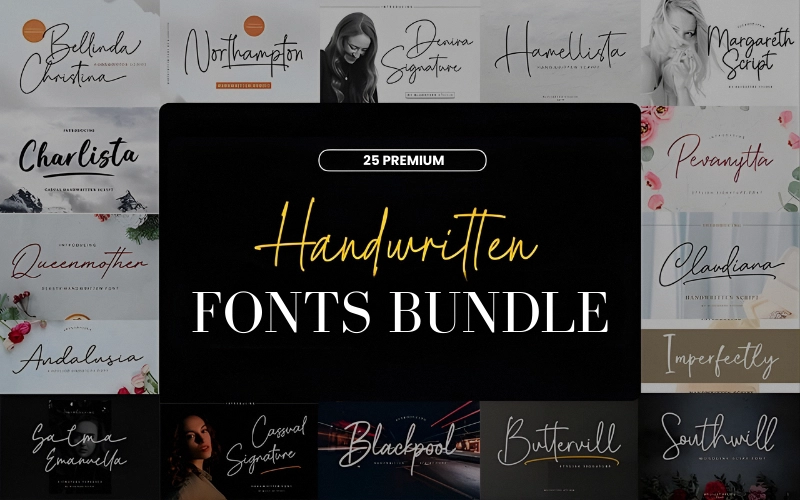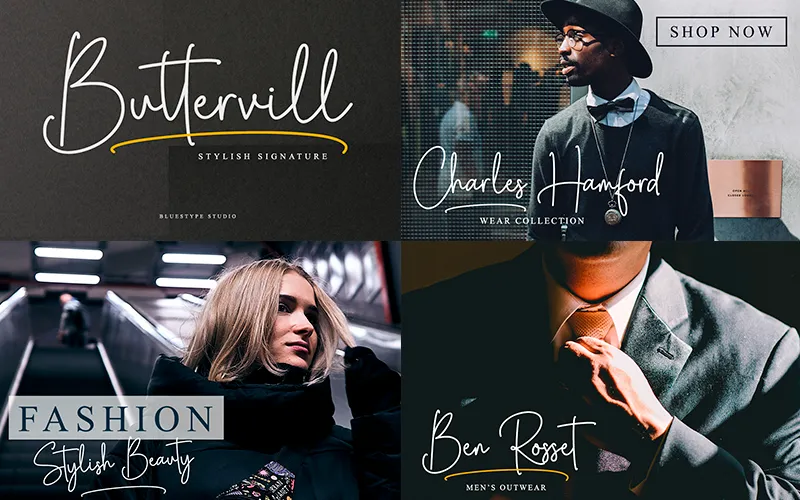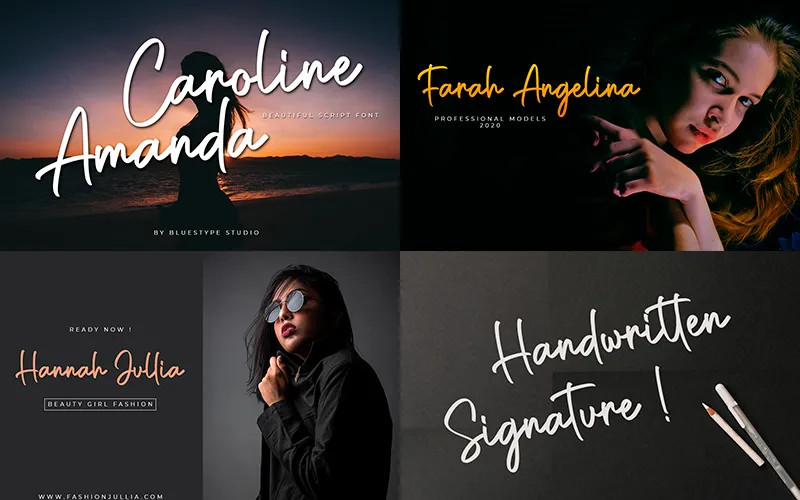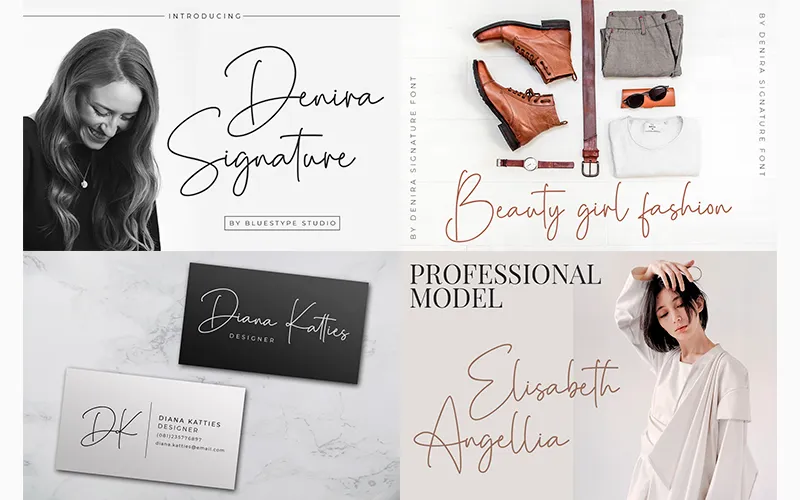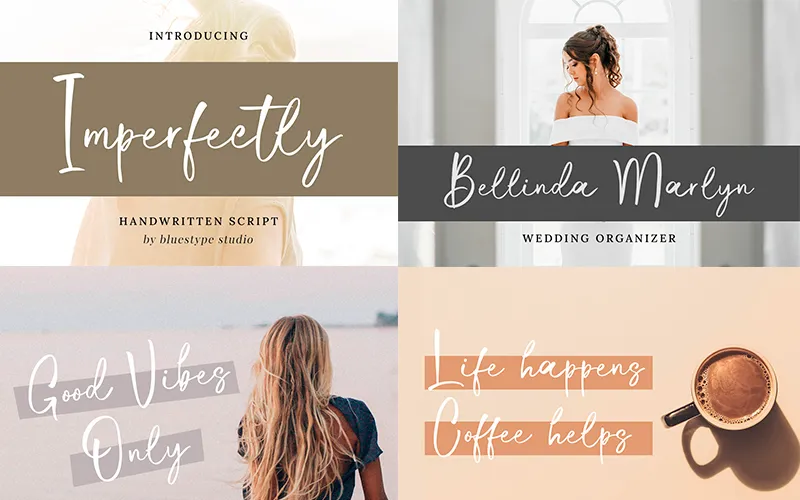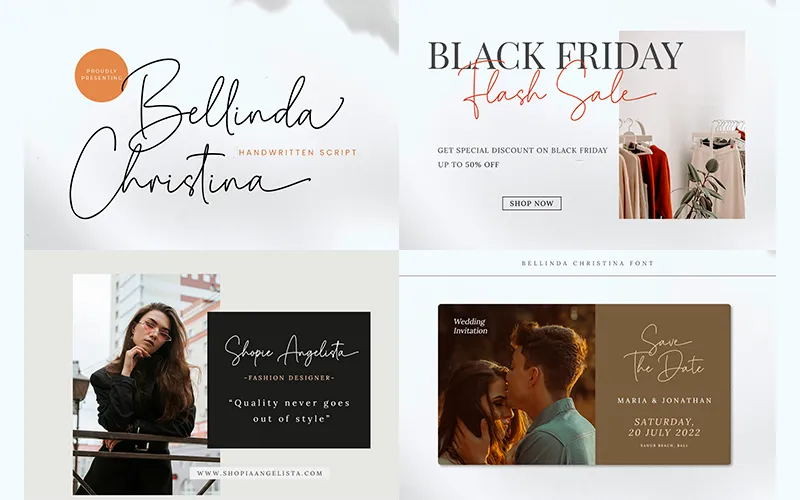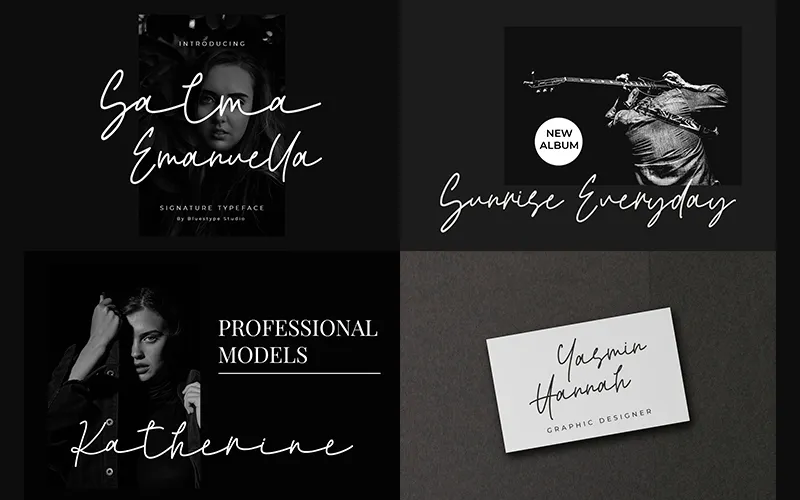
Are generic fonts making your designs forgettable? Not anymore! Add unforgettable charm and elegance to your creations with the –
Premium Handwritten Fonts Bundle
These handwritten fonts offer a wide range of script, signature, display, and brush styles.
They come with ligatures, stylistic alternates, and PUA encoding for easy access to special characters.
These fonts are specifically designed to bring a natural, elegant, and personal feel to your designs.
Whether you need a bold signature style or a soft, flowing script, this bundle includes all the right, ready-to-use options.
These Premium Handwritten Fonts Can Be Used To:
- Create personal and unique logos.
- Design elegant branding materials.
- Craft packaging that stands out on shelves.
- Make eye-catching social media graphics.
- Design invitations, greeting cards, and stationery.
- Add a natural, handcrafted touch to posters and flyers.
- Enhance websites, blogs, and digital content.
- Produce merchandise, T-shirts, and product designs.
These Premium Handwritten Fonts Include:
Andalusia Font
Bellinda Christina Font
Blackpool Font
Brittany Golden Font
Buttervill Font
Caroline Amanda Font
Cassual Signature Font
Charlista Font
Claudiana Font
Denira Signature Font
Hamellista Font
Hello Katterine Font
Hidden Spring Font
Imperfectly Font
Insightful Font
Julietta Kissing Font
Just Believe Font
Margareth Script Font
Northampton Font
Pevanytta Font
Queen Renata Font
QueenMother Font
Salma Emanuella Font
Sherina Safira Font
Southwill Font
- Font Styles: Script & Signature Styles
- Font Types: Script, Signature, Display, & Brush Fonts
Preview Of The Premium Handwritten Fonts: